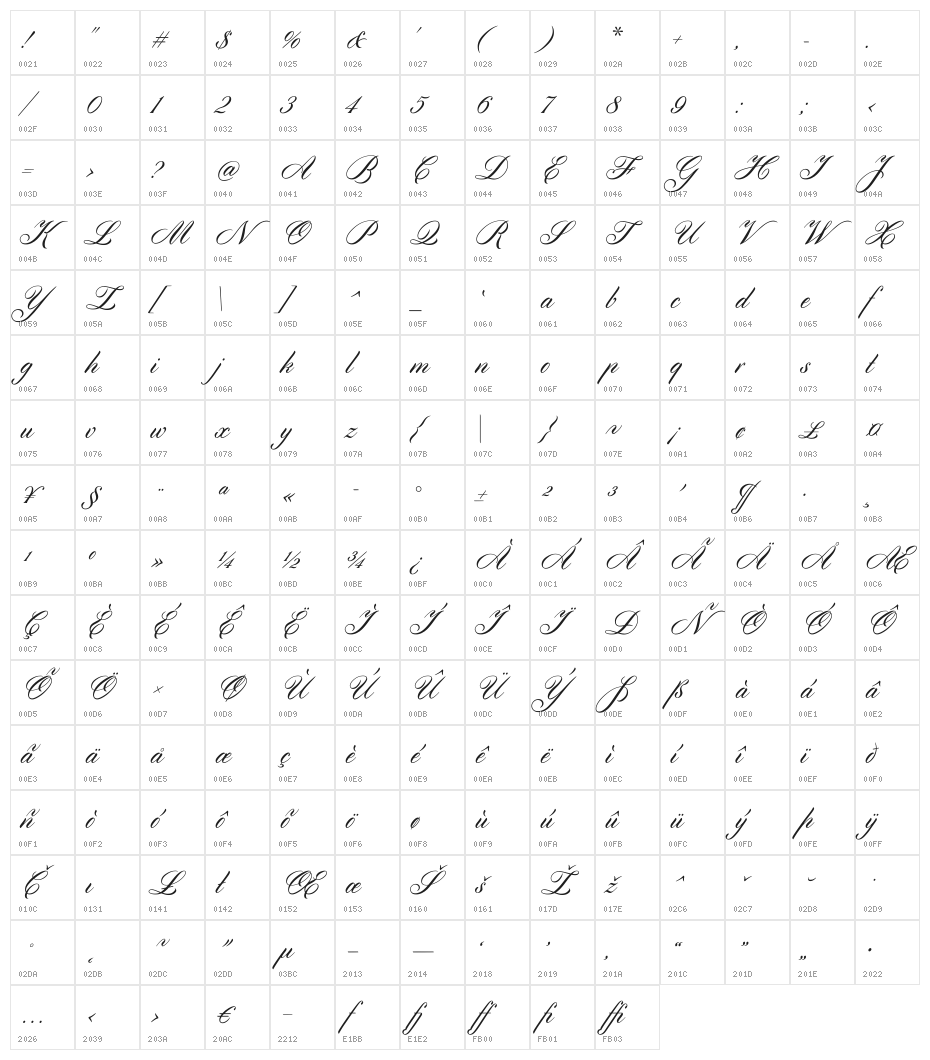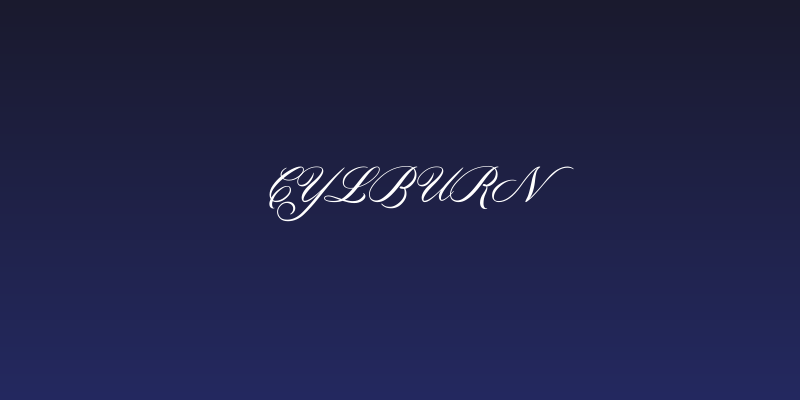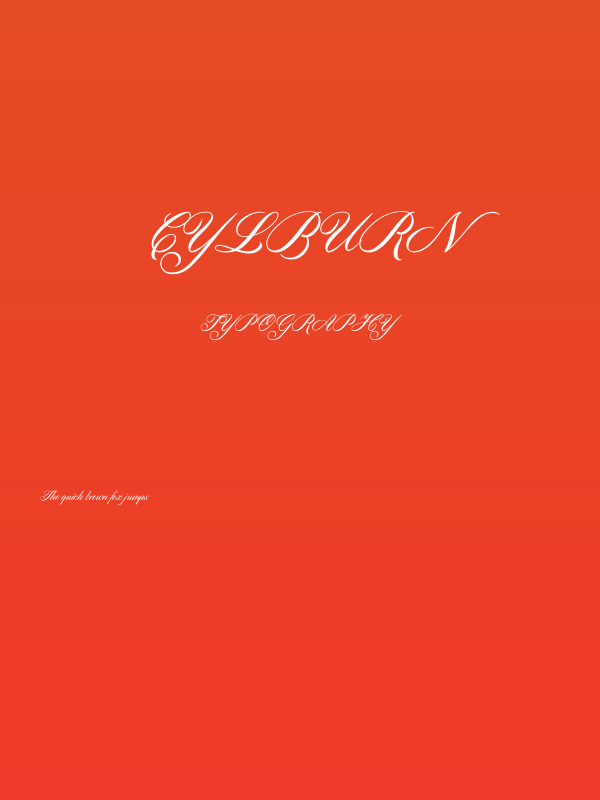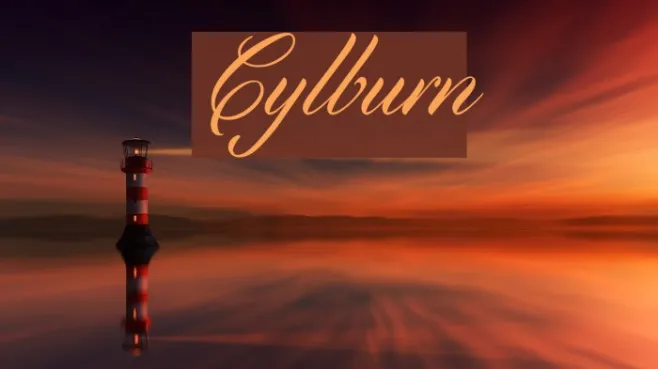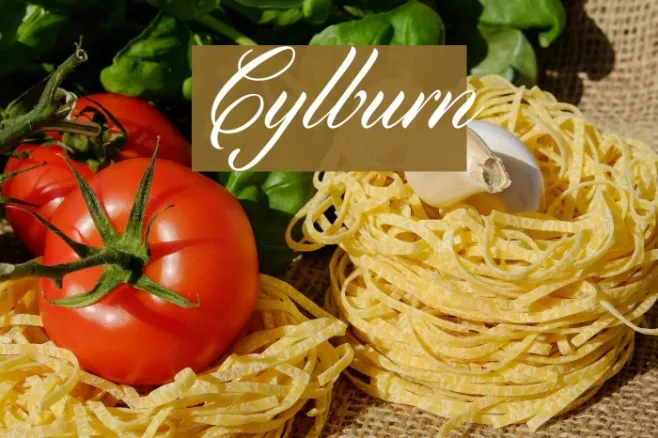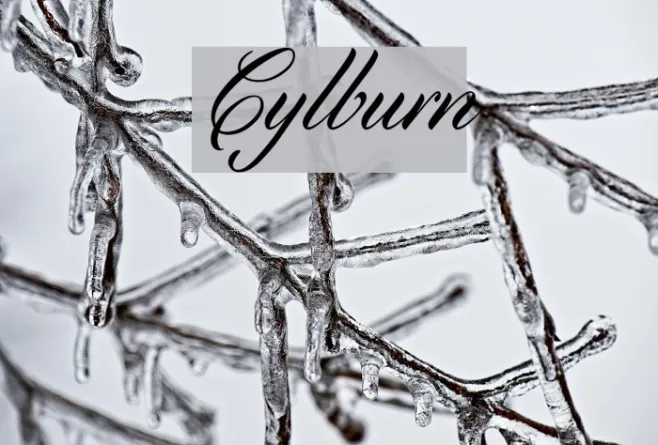
Cylburn Font
Cylburn Description
This elegant script font features flowing, cursive letterforms with a classic and sophisticated appearance. The uppercase letters are ornate, with intricate loops and flourishes that give a sense of movement and grace. The lowercase letters maintain a consistent style, offering a smooth and connected look that enhances readability while retaining an artistic flair. Numbers and special characters are designed to match the overall aesthetic, providing a cohesive and harmonious appearance across all elements. This font is perfect for projects that require a touch of elegance and refinement.
| Proposed Projects | Ideal for wedding invitations, elegant branding, luxury product packaging, and formal event programs. |